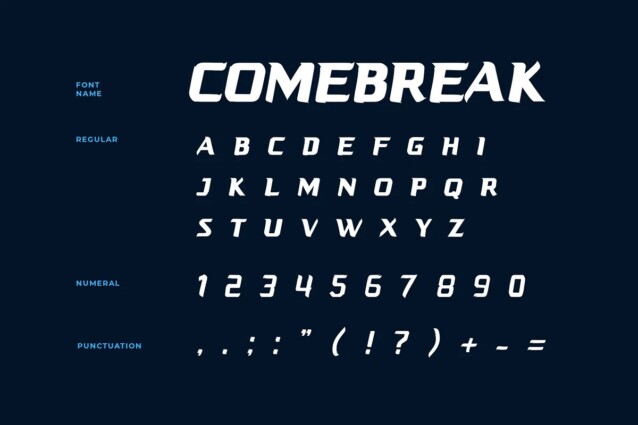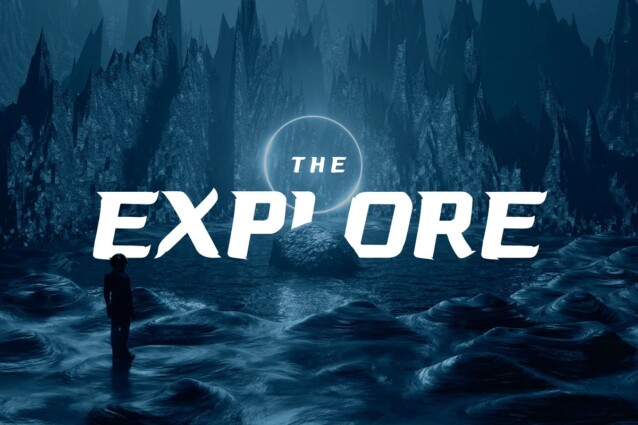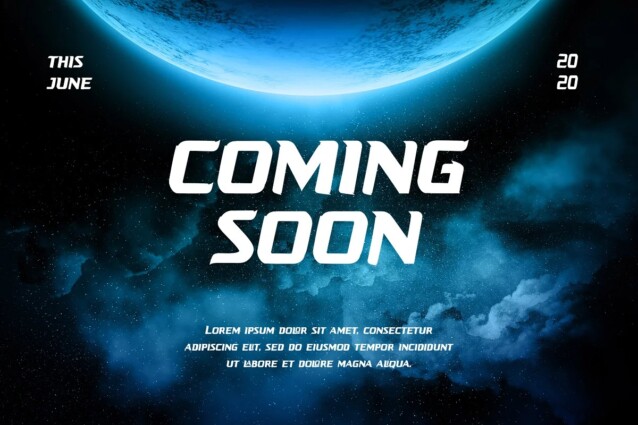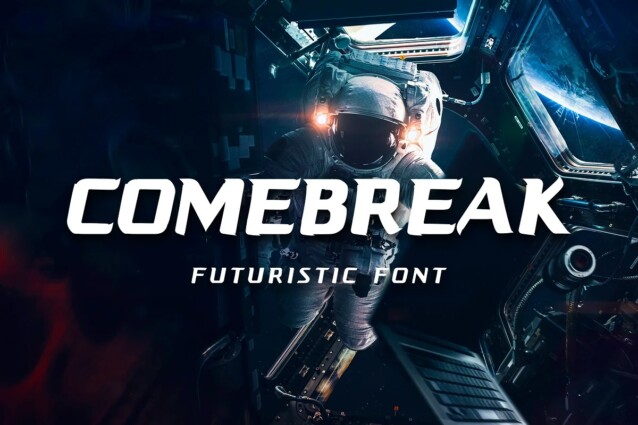
Comebreak Font
Comebreak Font is a display typeface inspired by both the automotive and aerospace industries. This font is ideally suited for a wide variety of projects, such as signature, stationery, logo, wedding, typography quotes, magazine or book covers, website headers, clothing, branding, packaging design, and more. Also, fashion-related branding or editorial design displays both masculine and feminine qualities.